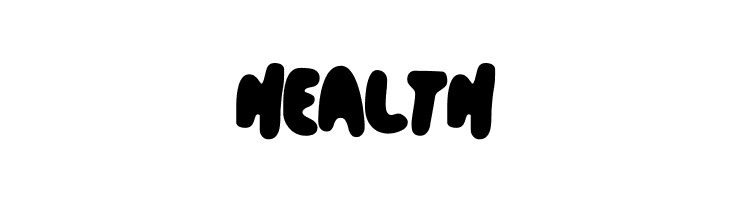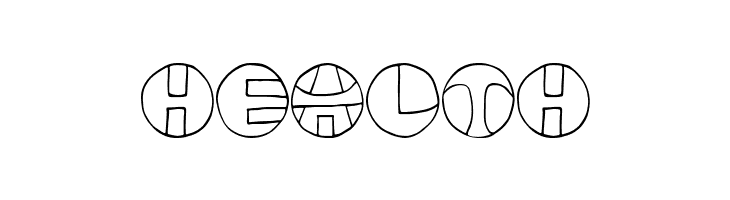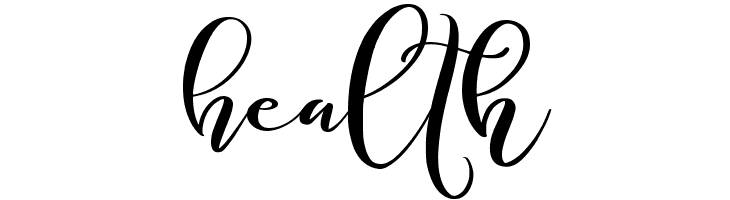
A bold, dynamic brush script font with fluid, interconnected strokes.
An elegant and flowing script font with intricate loops and swashes.
A sophisticated, cursive script with graceful, elongated letterforms.
An elegant, cursive font with flowing lines and ornate details.
A playful, bold script font with a handwritten, cursive style.
A dynamic, handwritten font with bold, fluid strokes.
A fluid, elegant handwritten font with a natural cursive flow.
A playful, handwritten font with smooth curves and a casual style.
A bold, playful font with thick, whimsical characters.
An elegant and flowing script font with smooth, cursive letterforms.
An elegant, flowing script font with a calligraphic style.
A graceful and flowing script font with elegant cursive strokes.
A bold, playful font with rounded edges and a whimsical style.
A dynamic, expressive script font with a modern, handwritten style.
A flowing cursive font with elegant, interconnected strokes.
A bold, thorny font with sharp, jagged edges for a striking visual impact.
A flowing, cursive font with elegant loops and swashes, perfect for artistic projects.
A bold, dynamic script font with fluid, connected letterforms.
A playful, whimsical handwritten font with tall, narrow letters and a casual style.
A playful, bold font with rounded edges and a friendly appearance.
An elegant script font with flowing curves and sophisticated style.
A modern, geometric font with clean lines and a minimalist style.
A bold, dripping script font with a horror or grunge aesthetic.
A flowing, cursive font with elegant loops and smooth connections, perfect for artistic projects.
A flowing, cursive font with elegant loops and smooth transitions.
A bold serif font with thick strokes and sharp serifs, offering a modern twist on classic design.
A flowing, cursive font with elegant and sophisticated styling.
A charming script font with elegant swirls and a playful flair.